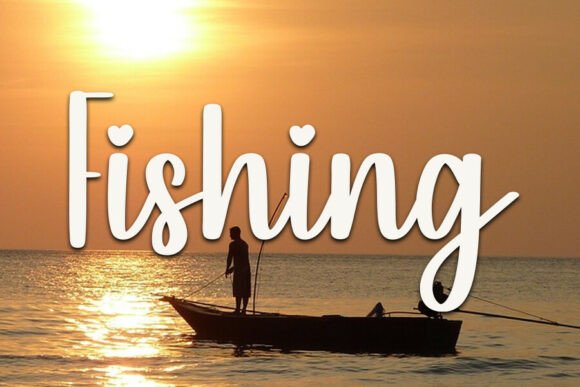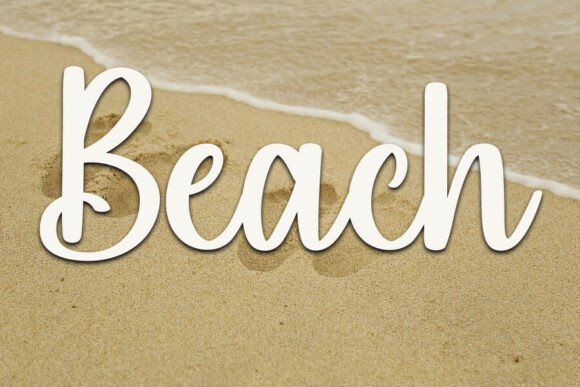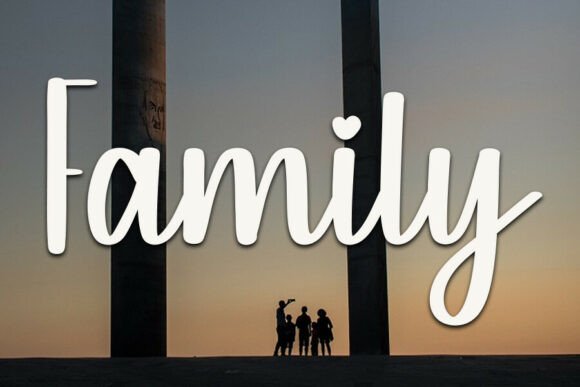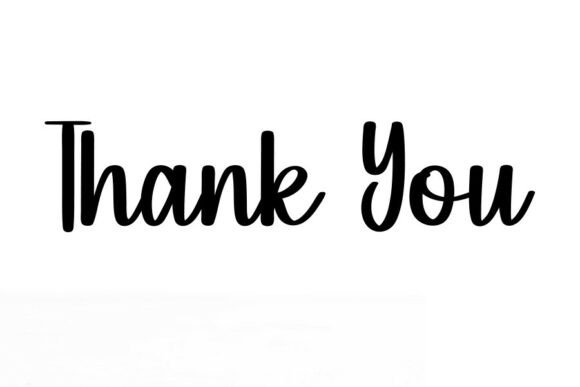
The Perfect Match for Your Next Design Project
Have you ever found yourself sitting in front of your computer, staring at a blank page, trying to come up with the perfect design concept? You’ve got a vision, but it’s just not translating onto the screen. That’s where the Bestie Font comes in – a simple, yet effective solution to breathe new life into your next project.
The Bestie Font is a versatile, handwritten font that’s perfect for adding a personal touch to your designs. Whether you’re creating a heartfelt greeting card or a bold headline, this font is guaranteed to add a natural feel to your work. As a designer, you know how crucial it is to have the right tools at your disposal, and the Bestie Font is a valuable addition to any design arsenal.
Bestie Font Key Features
- Font Size: Bestie Font is available in multiple font sizes, including regular, bold, italic, and bold-italic styles, to cater to various design needs.
- Unique Characteristics: The Bestie Font features a playful, handwritten style with a mix of cursive and script elements, making it perfect for creating eye-catching headlines and titles.
- Font Pairing: Bestie Font pairs well with sans-serif fonts, making it an excellent choice for modern and minimalist designs.
Review of Bestie Font
When I first laid eyes on the Bestie Font, I was immediately drawn to its playful and cursive nature. ✨ The font has a whimsical touch that makes it perfect for creating a friendly and approachable atmosphere. I’ve used it for various design projects, and it always seems to bring a smile to the user’s face.
Some of the strengths of the Bestie Font include:
- Its versatility: it works well for both digital and print media, making it a great choice for designers who need a consistent look across different platforms.
- Its legibility: even at smaller font sizes, the Bestie Font remains easy to read, which is essential for any design project.
- Its emotional appeal: the font’s playful nature makes it perfect for creating a sense of warmth and friendliness in any design.
However, there are some limitations to the Bestie Font:
- ⚠️ It may not be the best choice for formal or professional designs, as its playful nature may come across as unprofessional.
- ⚠️ The font may not be as effective for body text, as its cursive nature can make it difficult to read at length.
Overall, I would highly recommend the Bestie Font for any design project that requires a playful and approachable atmosphere. While it may have some limitations, its strengths make it a valuable addition to any designer’s toolkit.
Getting the Most Out of Bestie Font
For best results, use the Bestie font in designs that require a playful, handwritten feel. It pairs well with bright colors and whimsical graphics. Experiment with different font sizes and styles to add visual interest to your designs.
The Bestie font is commonly used in:
– Party invitations
– Children’s products
– Handmade or craft-related designs
Alternatives to Bestie Font for Designers
Great Vibes is a beautiful, handwritten font perfect for adding a touch of elegance and sophistication to your designs. It’s ideal for use in invitations, wedding designs, and other creative projects. Compared to Bestie Font, Great Vibes has a more refined and polished look, making it suitable for a wider range of applications.
Carolyna Pro is a modern, elegant script font that’s perfect for adding a touch of luxury to your designs. It’s ideal for use in high-end branding, invitations, and other creative projects. Compared to Bestie Font, Carolyna Pro has a more refined and sophisticated look, making it suitable for premium branding and design projects.